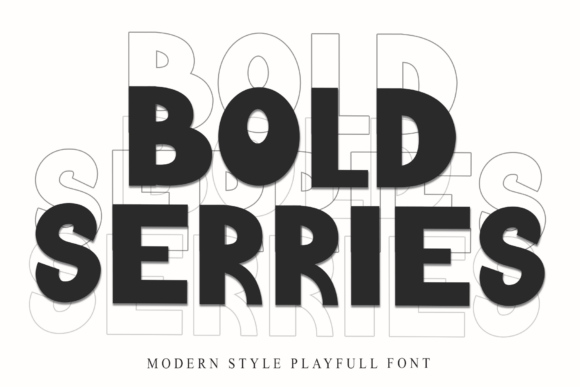
The Power of Bold Statements: Unleashing the Potential of Bold Serries Font
I’ll never forget the time I was working on a project for a client who wanted a bold, eye-catching title that would grab the audience’s attention. I scoured the internet for the perfect font, but nothing seemed quite right. That was until I stumbled upon Bold Serries Font. Its thick, bold letters immediately caught my eye, and I knew I had found the perfect fit. In this article, I’ll share my experience with Bold Serries Font, its features, and how to make the most of it in your designs.
A First Impression: What I Love About Bold Serries Font
Bold Serries Font is a strong and confident display font that makes a statement. Here are some things I love about it:
- ✨ Easy to read: Despite its bold nature, the font is surprisingly easy to read, even at smaller sizes.
- ✅ Perfect for titles and headlines: The thick, bold letters make it ideal for grabbing attention and adding emphasis to your designs.
- 💼 Versatile: Bold Serries Font works well for a variety of design projects, from logos and branding to posters and social media graphics.
- 📈 Modern and confident feel: The font adds a touch of modernity and confidence to your designs, making it perfect for businesses and individuals looking to make a statement.
While Bold Serries Font is an excellent choice for many design projects, there are a few quirks to be aware of:
- 🤔 Limited use for body text: Due to its bold nature, Bold Serries Font may not be the best choice for body text or longer blocks of text.
- ⚠️ May not work well with certain design styles: The font’s bold, modern feel may not mesh well with more traditional or ornate design styles.
The Story Behind Bold Serries Font
Bold Serries Font was designed with the goal of creating a strong, eye-catching display font that would make a statement. The designer, inspired by modern typography and bold architecture, set out to create a font that would be both confident and versatile.
| Font Name | Bold Serries Font |
| What is Bold Serries Font best used for? | Bold Serries Font is best used for titles, logos, and headlines where a bold, eye-catching font is desired. |
| Is Bold Serries Font easy to read? | Yes, despite its bold nature, Bold Serries Font is surprisingly easy to read, even at smaller sizes. |
| Can I use Bold Serries Font for body text? | While possible, Bold Serries Font may not be the best choice for body text or longer blocks of text due to its bold nature. |
| Is Bold Serries Font suitable for digital use? | Yes, Bold Serries Font is suitable for digital use and can be used in a variety of digital design projects, from social media graphics to websites. |